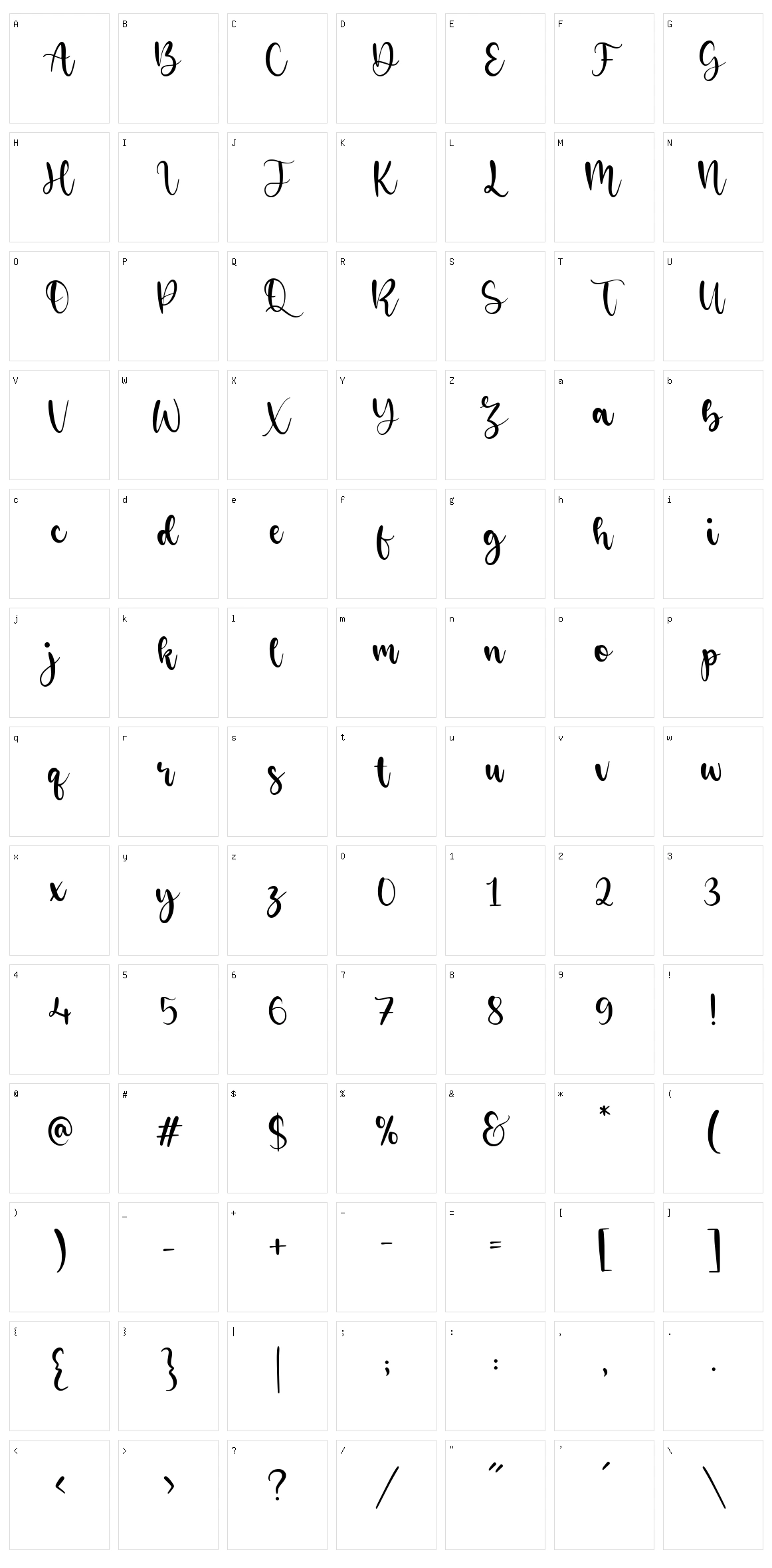
The free font Twinkle Magic is carefully designed by Balpirick Studio, showcasing a thoughtful balance of creativity and usability and falls under the Script font style. When you download the ZIP file, it contains only 65.7 KB of font files, making it lightweight and quick to download. Please review the license details below to understand permitted usage and distribution rights. If license information is not available, we recommend using this font for personal projects only or contacting the author directly for commercial usage permissions.